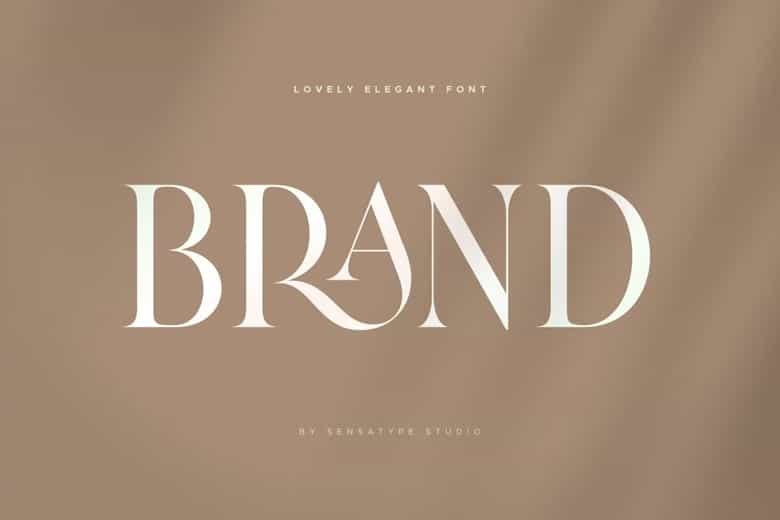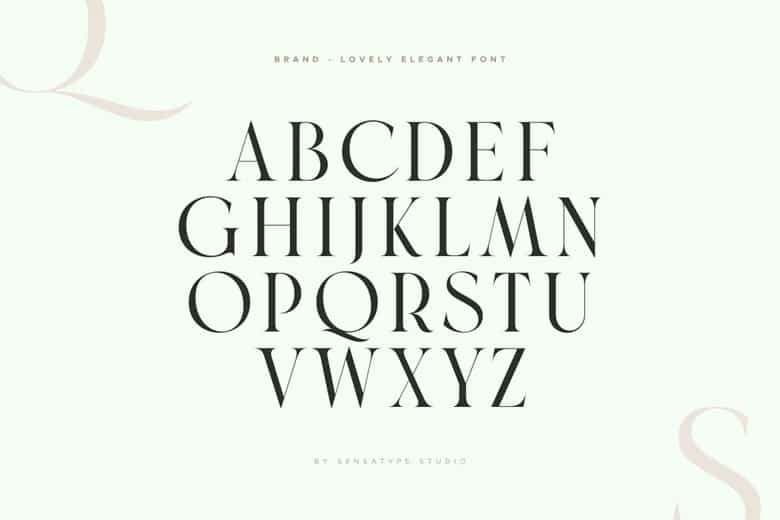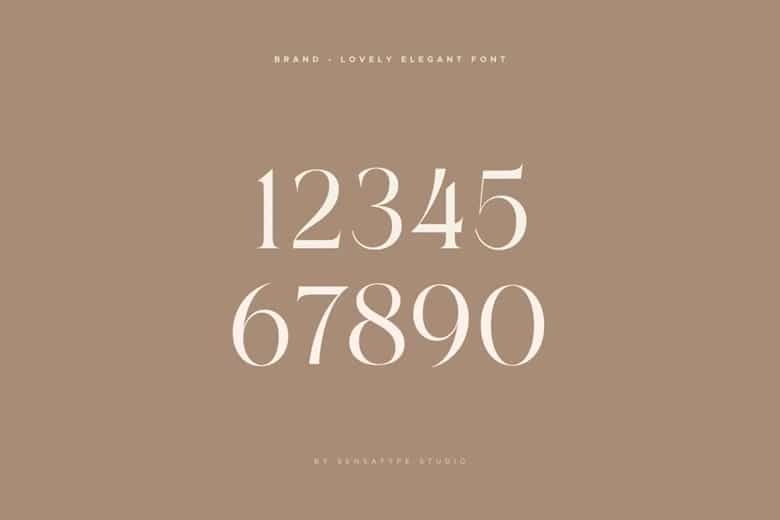
Brand is a beautiful uppercase serif typeface. Designed by Sensatype Studio. This set is ideal for branding schemes, logotype, wedding artworks, social media, ads, package designs, product designs, label, photographic artworks, watermarks, invitations, stationery and all projects which require serif feel.